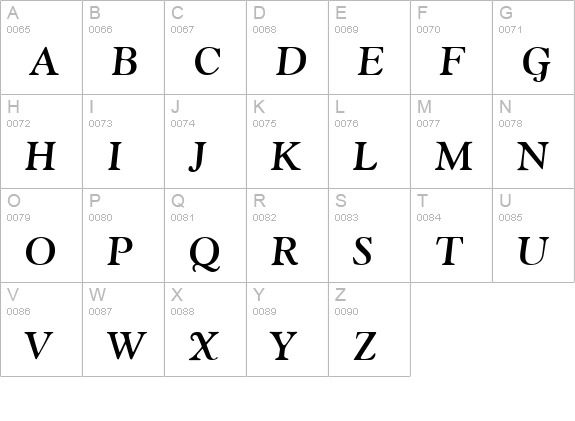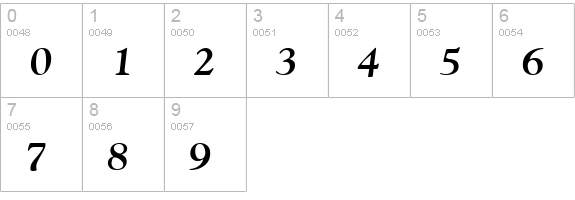
Gilde Bold Italic Font Details
Gilde Bold Italic is a strong, high-contrast, italic variant in the Gilde typeface family \xE2\x80\x94 well suited to headlines, attention-grabbing titles, and strong calls-to-action.
Gilde Bold Italic font is a striking and versatile typeface that exudes elegance and sophistication. Its bold yet graceful letterforms make it perfect for adding a touch of modern flair to any design project. The italicized style adds a sense of dynamism and movement, making it ideal for headlines, logos, and branding materials. What sets Gilde Bold Italic font apart is that it is not only visually stunning but also free to use. Yes, you read it right - this premium font is freely available for download at FontsMarket.com. So, whether you are a professional designer looking to elevate your creations or a hobbyist looking for a unique font for a personal project, Gilde Bold Italic font is the perfect choice. Download it now and let your creativity soar with this exceptional typeface.